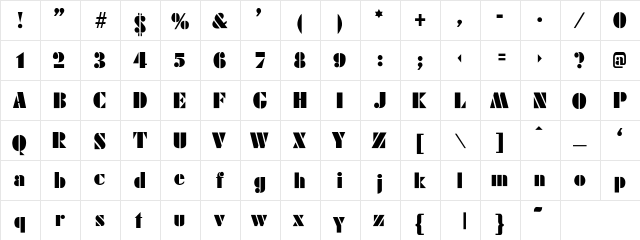
Futura_Poster-L Regular
Design Context for Futura_Poster-L Typeface
Futura_Poster-L channels digital-age aesthetics through its sharp, structured letterforms — ideal for brands that want to signal innovation.
Pro Tip: Use Futura_Poster-L in combination with a neutral sans for body text. Let it define the brand voice in headlines while keeping reading comfortable elsewhere.